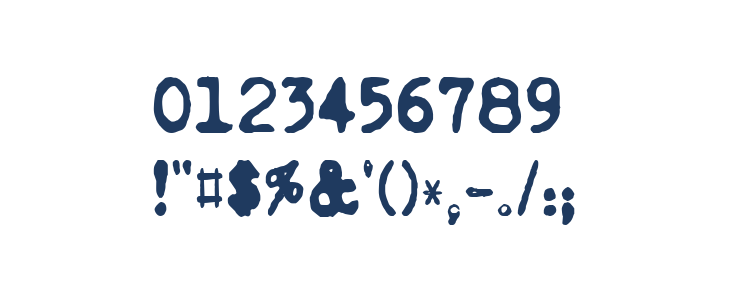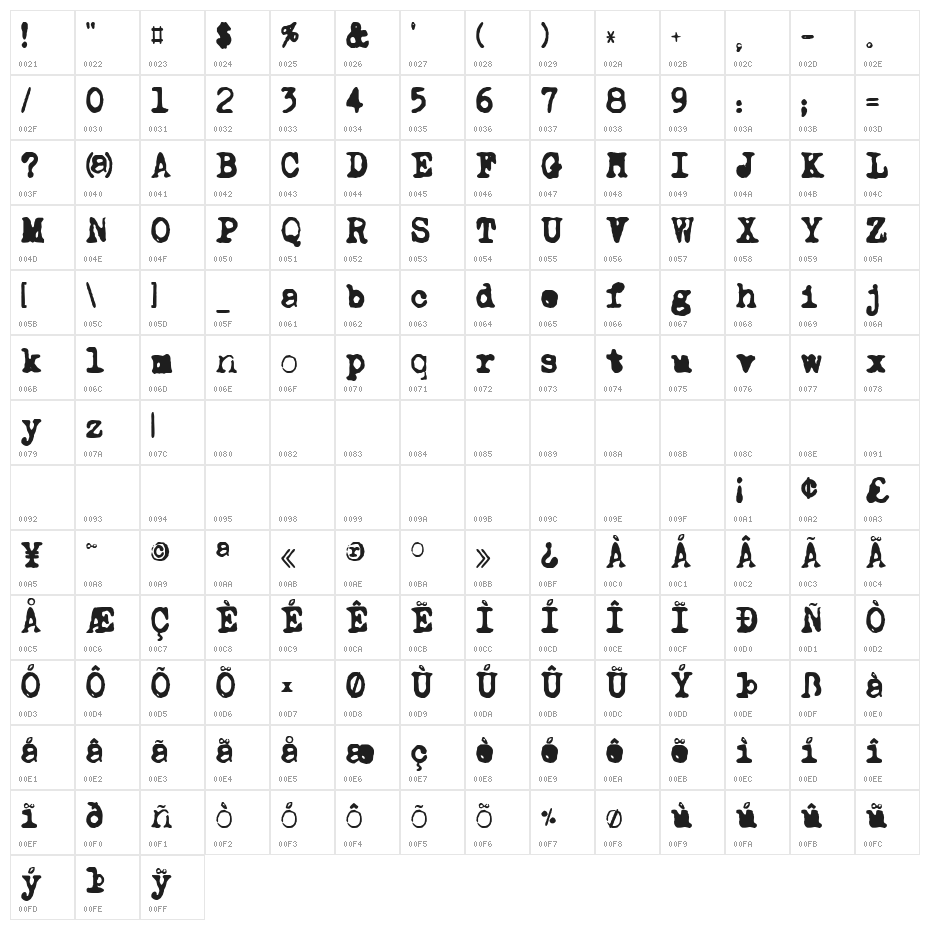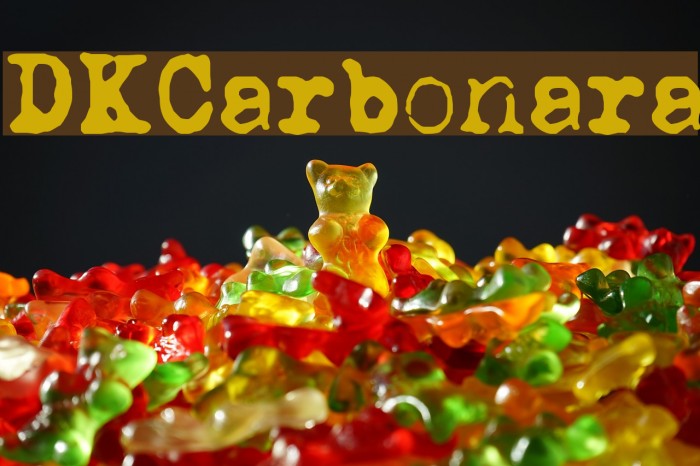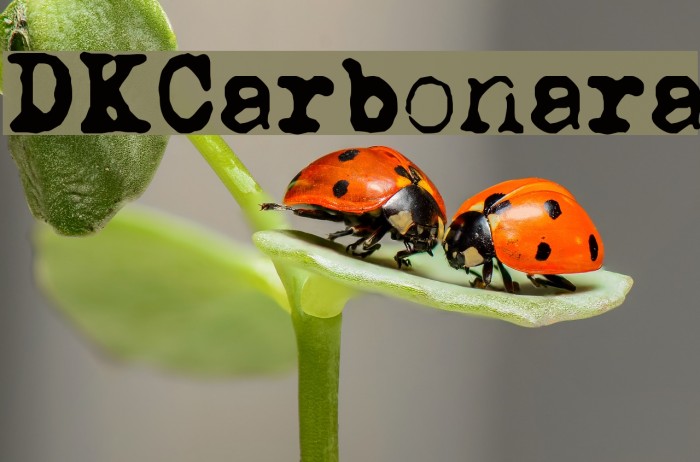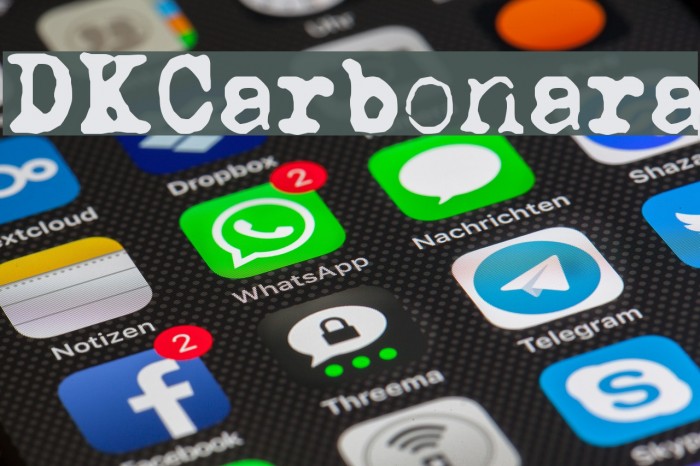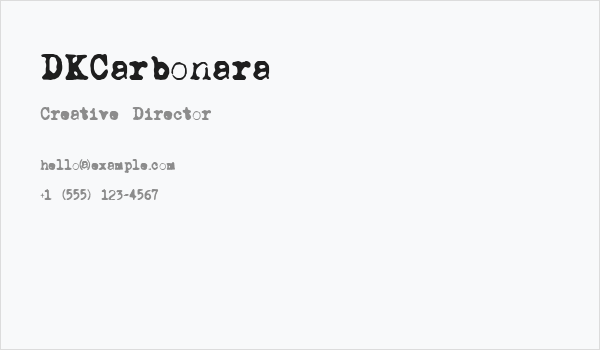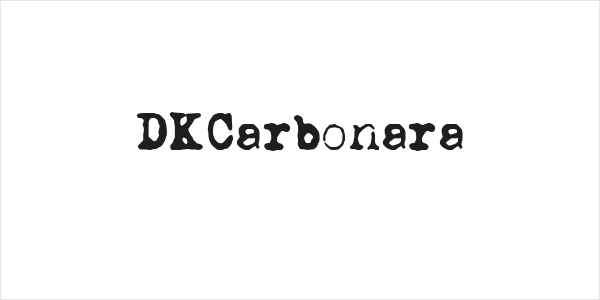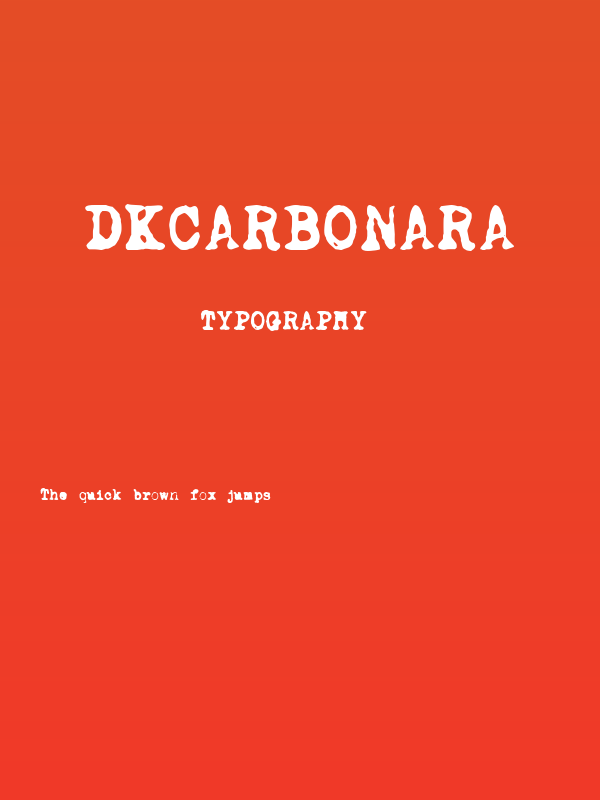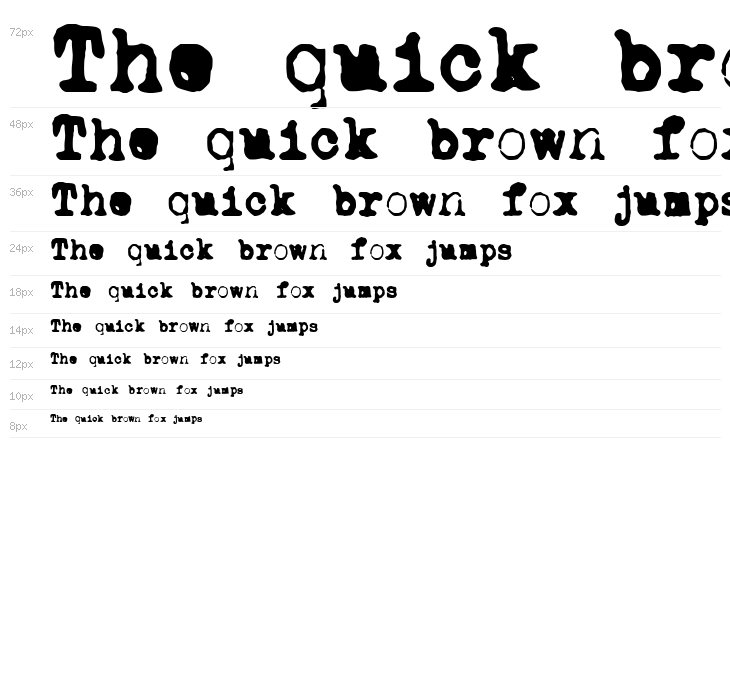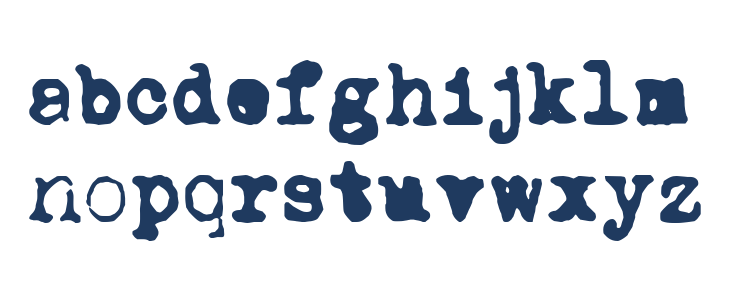
DKCarbonara Font
DKCarbonara Description
This font exhibits a bold and playful style with a distinctly irregular and organic appearance. The characters are heavily weighted with thick strokes, creating a strong visual impact. The edges are rough and uneven, giving it a hand-drawn, almost grunge-like aesthetic. This font is highly decorative, with each letterform appearing unique, contributing to its dynamic and energetic feel. The uppercase and lowercase letters maintain a consistent style, while the numerals and special characters are equally bold and expressive. The overall design is reminiscent of vintage or retro styles, making it suitable for projects that require a touch of nostalgia or artistic flair.
Overall StyleVintage
Use CaseLogos, Posters, Headlines
Proposed ProjectsIdeal for posters, album covers, branding for creative industries, or any project needing a bold, artistic touch.